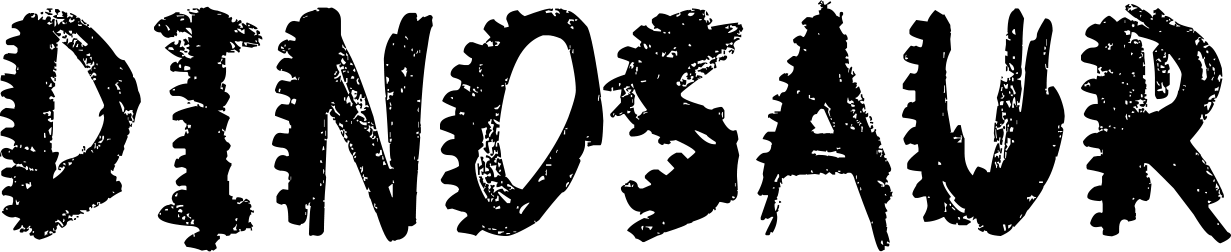
Dinosaur Font
Dinosaur font presents characters that are inspired by dinosaurs which is a particular feature that you can use in specific projects like cartoons, kids’ books, game titles, children-related magazines, museum promotions…
Dinosaur font presents characters that are inspired by dinosaurs which is a particular feature that you can use in specific projects like cartoons, kids’ books, game titles, children-related magazines, museum promotions for kids, etc. This dinosaur font only offers you the uppercase letters of the alphabet and numbers.